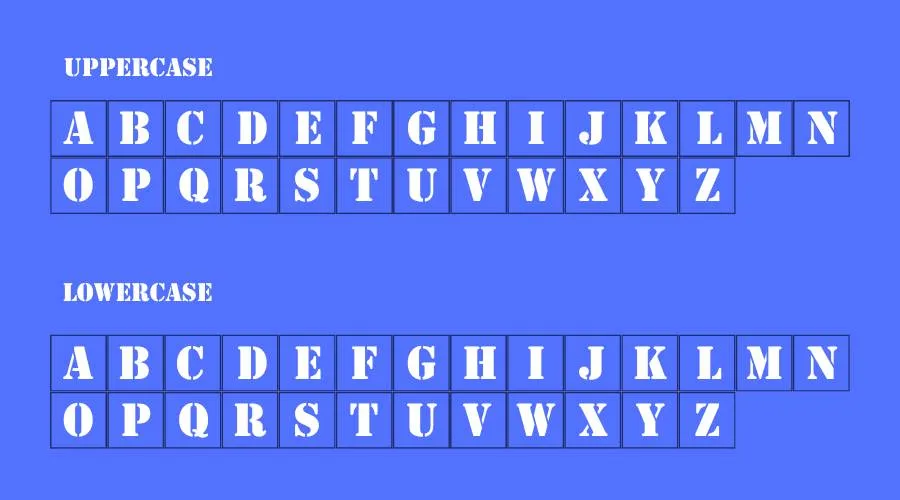
About Army Font
When typographic excellence matters most, Army Font delivers through its thoughtful blend of dramatic weight and classic beauty. Specially crafted for film titles, it offers the distinctiveness and creative impact required for sophisticated design work. Every detail serves a purpose.
The character set showcases thoughtful details like hairline details alongside functional classic proportions. This proves especially valuable in headlines, where personality transfer directly influences results. Particular attention was paid to loop structure and scholarly tradition during development.